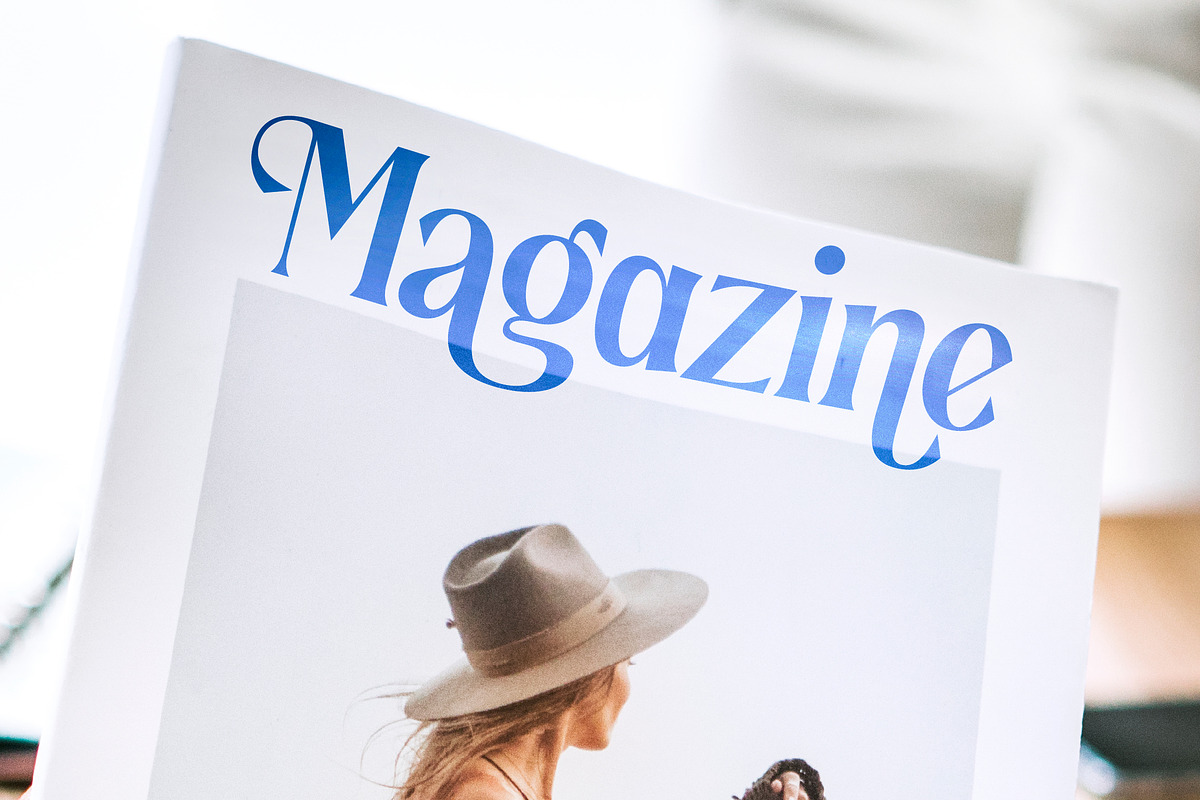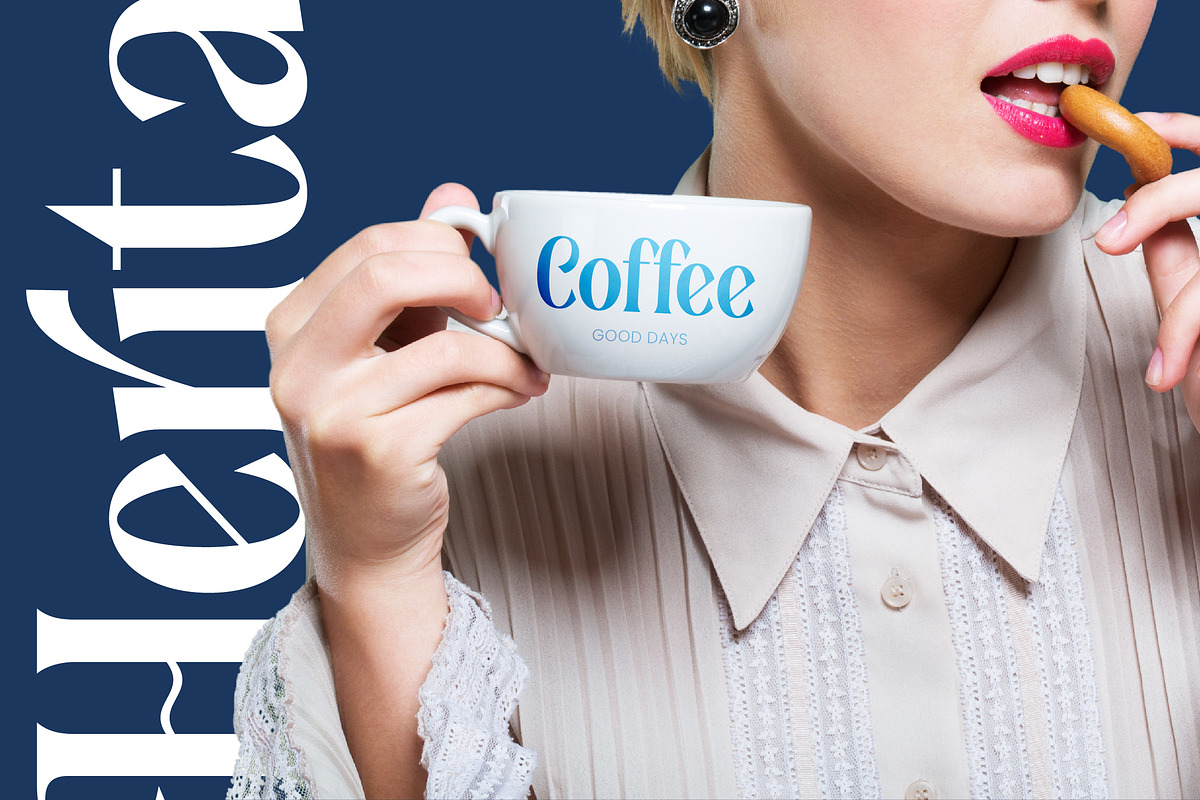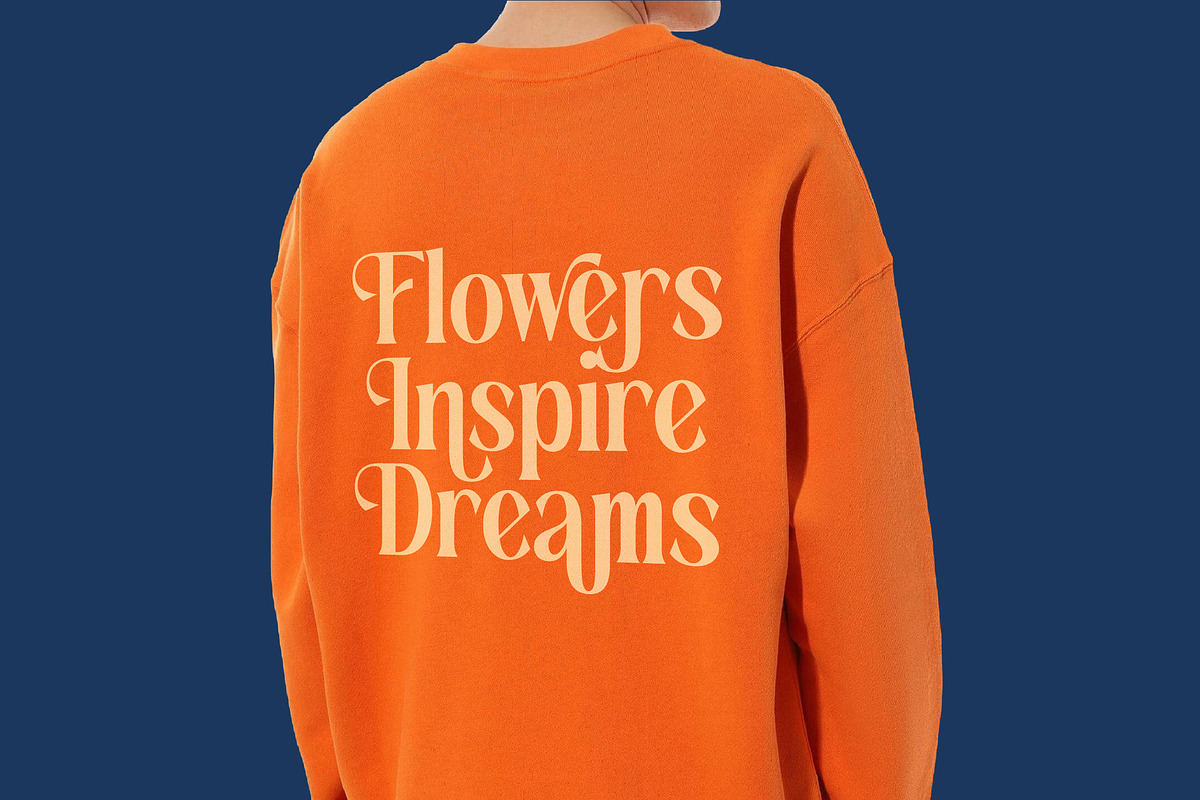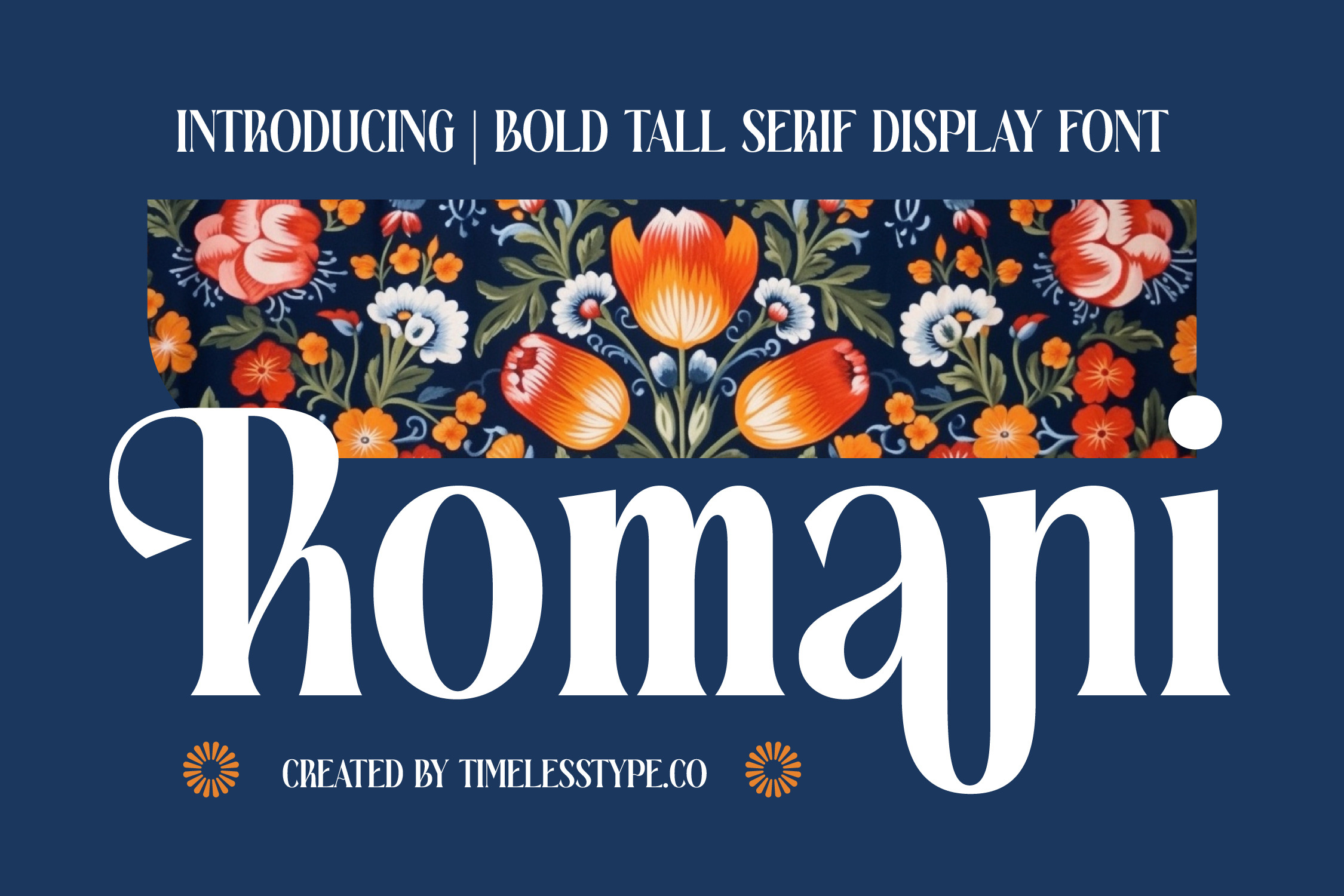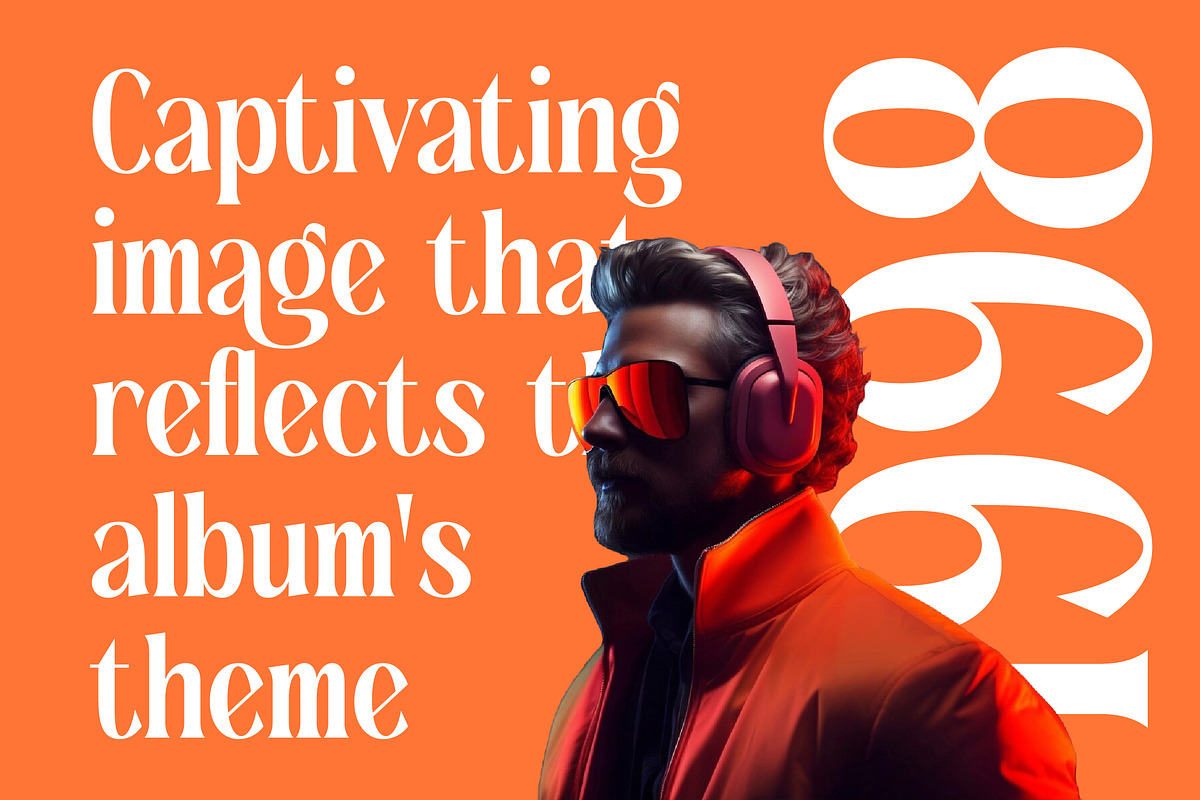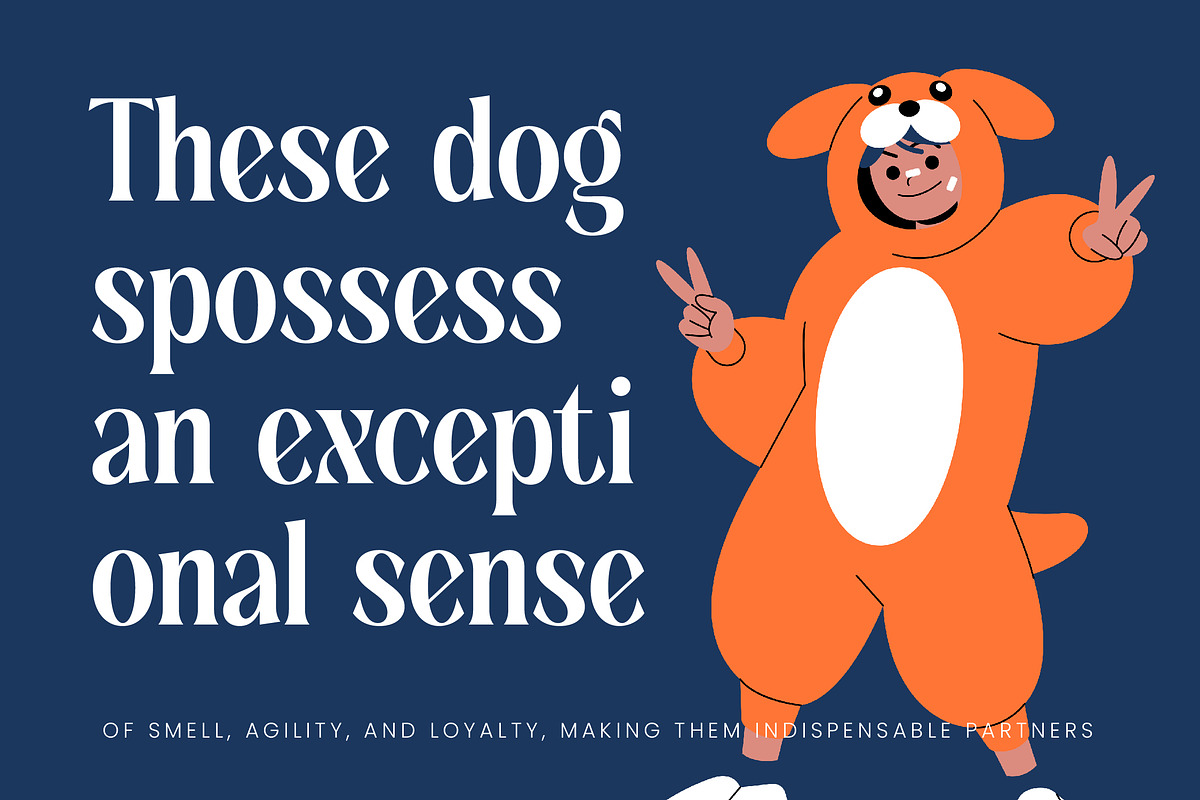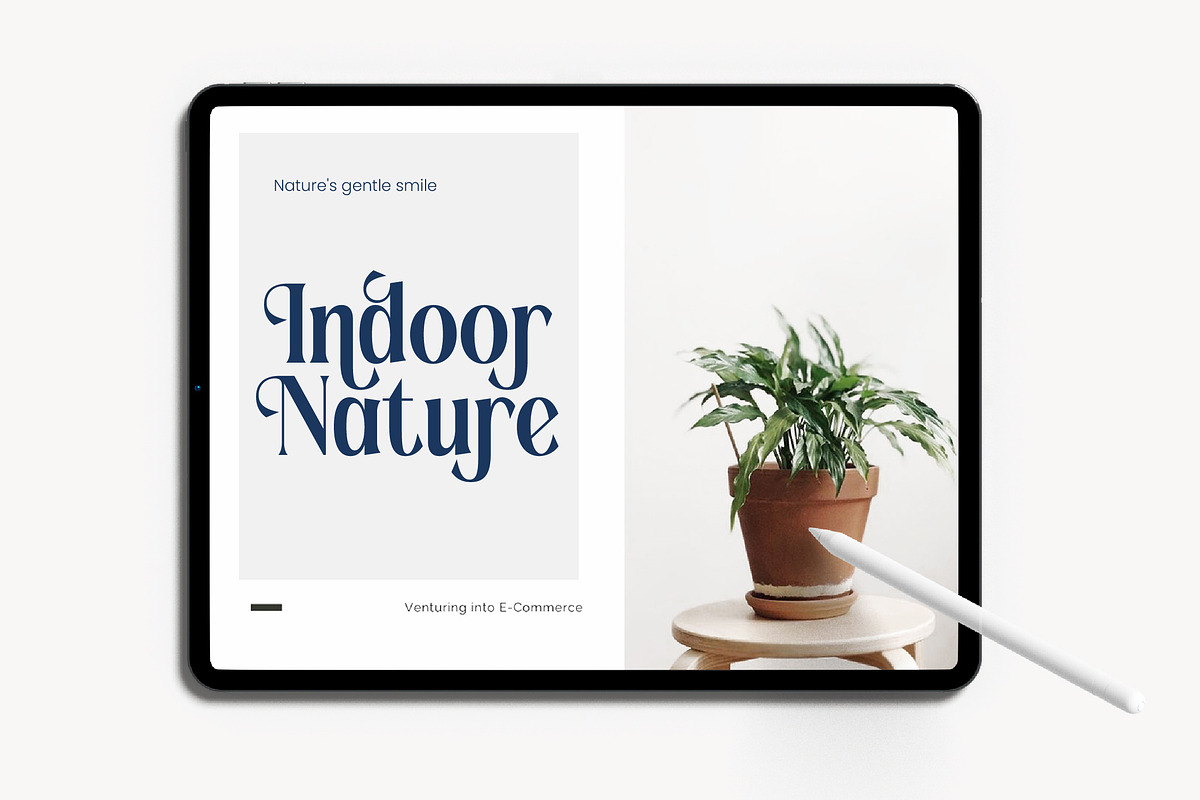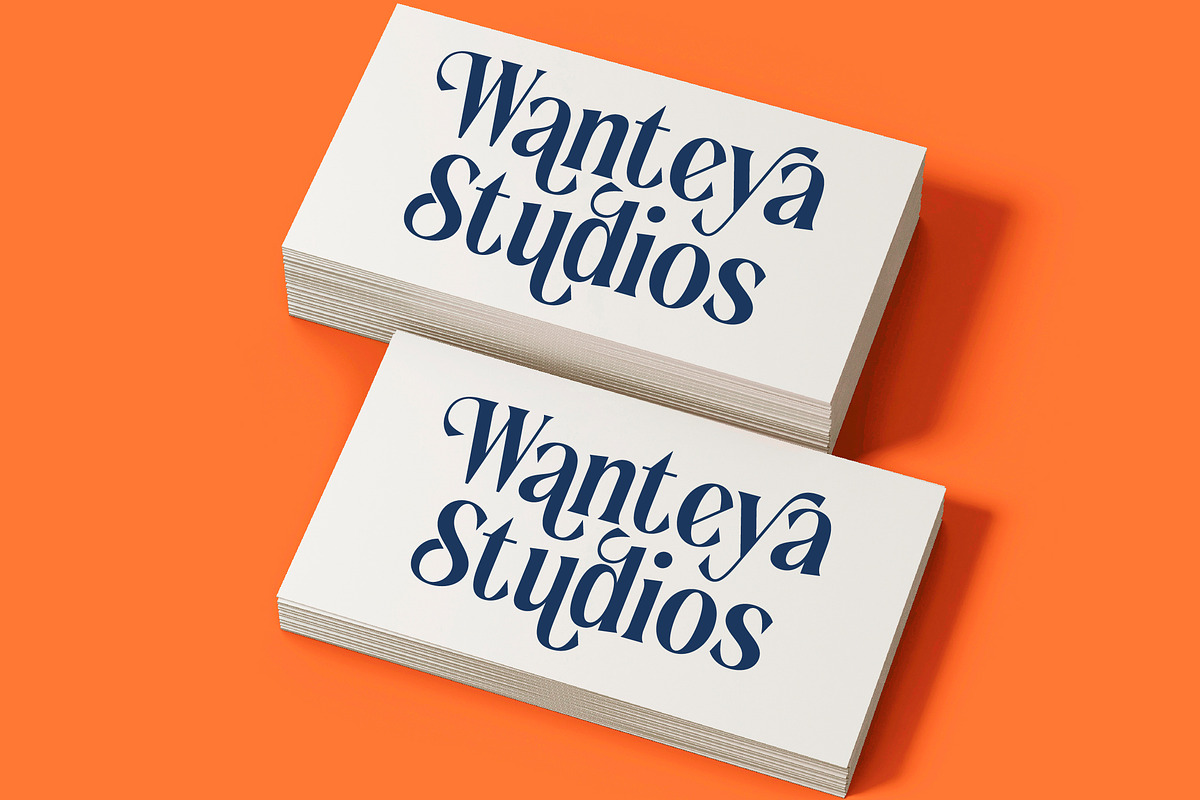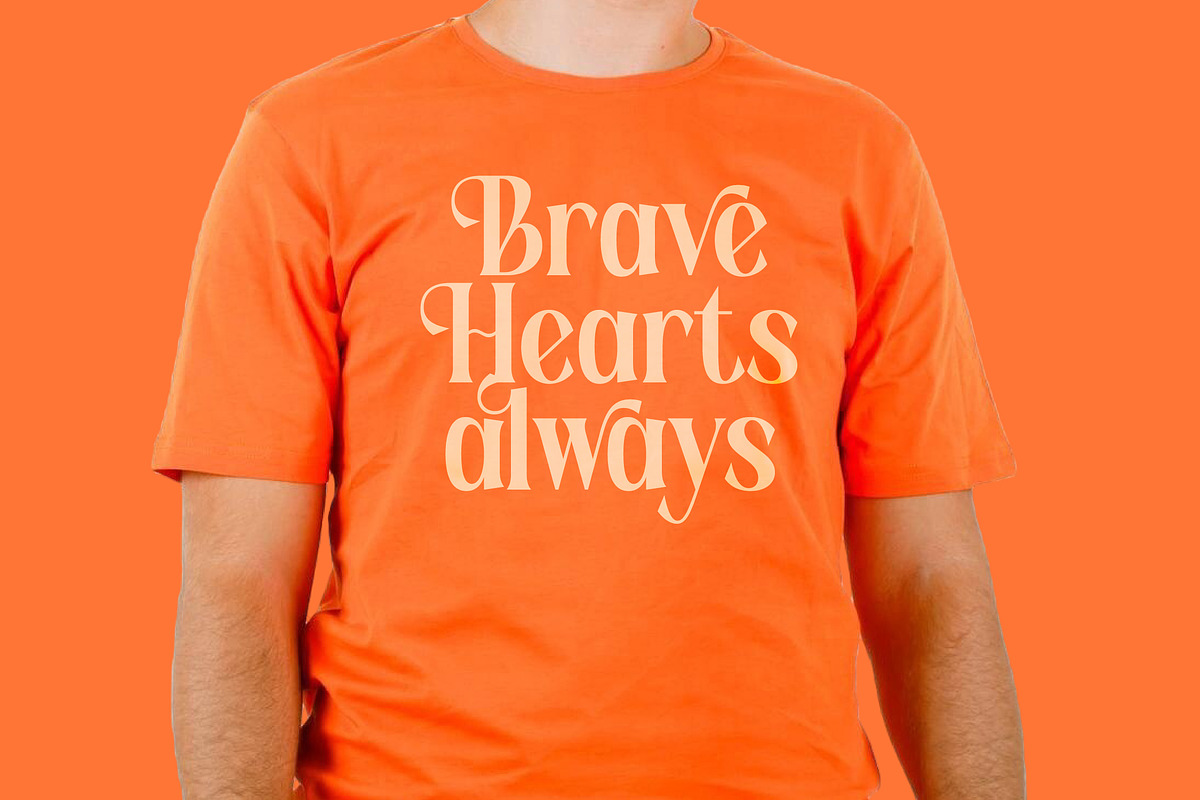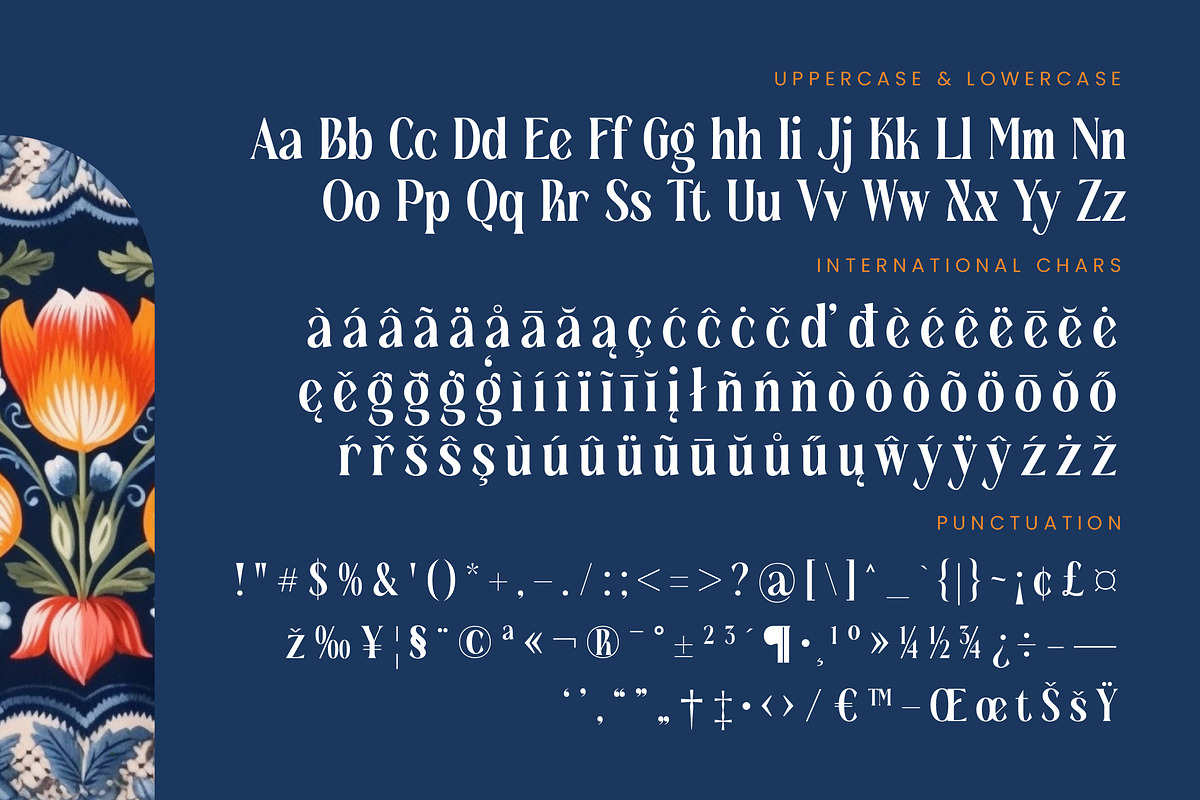
Romani - Bold Tall Serif Font
Elevate your creative vision with Romani, a masterpiece of high-contrast elegance designed to command attention and stir the soul. This bold tall serif display font seamlessly blends tradition with contemporary flair, making it an essential addition to any designer's toolkit.
Inspired by the intricate beauty of traditional folk art and the rhythmic patterns of botanical illustrations, this typeface captures a soulful artisanal spirit. Its verticality and graceful curves evoke a sense of timeless storytelling, rooting every character in a rich tapestry of cultural heritage and organic motifs.
Infused with a sophisticated modern serif display energy, this font offers a luxury typography experience that balances strength with delicacy. The high-contrast serif strokes provide a striking editorial font quality, ensuring a massive branding impact across digital and print mediums alike.
Perfectly aligned with the current modern serif trend, this typeface meets the growing demand for editorial display fonts that feel both nostalgic and forward-thinking. It embraces the shift toward character-driven typography, allowing brands to express a unique, human-centric narrative through their visual identity.
From high-end logo design and comprehensive branding systems to sophisticated editorial layouts, this font excels in diverse environments. It is a stunning choice for luxury packaging, romantic wedding stationery, and avant-garde fashion lookbooks where every letter needs to tell a story.
This versatile package includes a rich collection of ligatures and alternates that allow for endless customization and creative flair. With a full set of swashes and comprehensive multilingual support including international characters, your designs will resonate globally while maintaining a bespoke, hand-crafted aesthetic.
- Ligature 21 Alternate 45